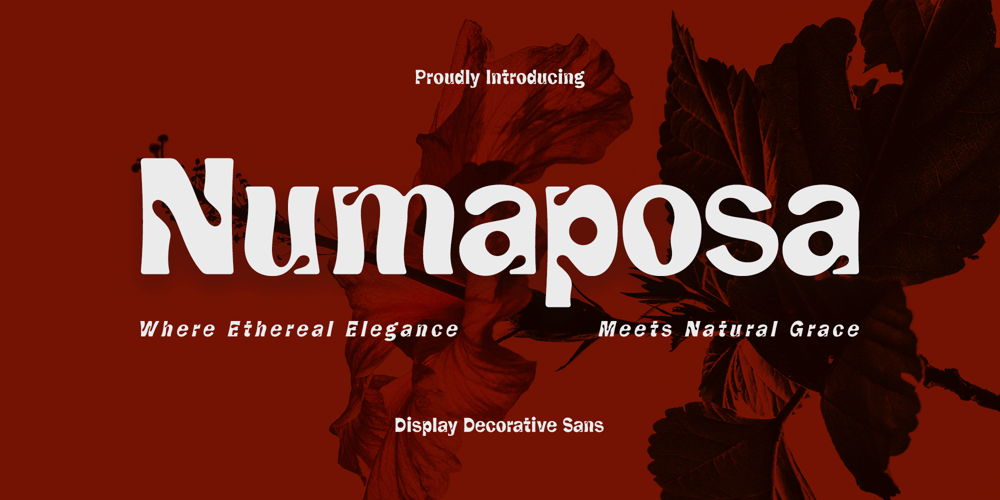
Numaposa Font Family was designed by Dede Kurniawan and published by Creatifont Studio. Numaposa contains 2 styles and family package options. Numaposa is a captivating decorative display font that blossoms with personality! This unique sans serif typeface combines organic curves reminiscent of cursive shape with a playful, modern twist. Notice the soft curves and flowing lines that hint at cursive elegance. These characteristics add a touch of sophistication and informality to your designs. Numaposa’s round letterforms and cleverly incorporated ink traps (the small enclosed areas within some letters) add a whimsical touch. Fluidity glyphs adds to the overall elegance and playfulness of the font. Numaposa offers both regular and italic styles, providing the flexibility to tailor your text according to your design needs.A SUMMARY OF WHAT’S INCLUDED: Standard Character A-Z, a-z, 0-9, Punctuation & symbols Regular and Italic Styles Multilingual Support (Diacritics, Accent, etc.) Works on PC & Mac Simple installation Accessible in Adobe Creative Suite (Ai, Ps, Id, etc.) even work on Microsoft Word. PUA Encoded Characters – Fully accessible without additional design software. ————————————————-SOFTWARE REQUIREMENTS:Most software readily supports the regular fonts within the package — To unlock the full potential of the extensive collection of standard ligatures (custom connected letters) found in the script font, you can use any software with OpenType font compatibility.To generate all ligatures, please go open Adobe Illustrator – Type – Glyphs.Please drop me a message if you have trouble regarding either installing or using this font.🌟If you come across any issues or notice anything we might have overlooked while using this product, please feel free to reach out to us. We greatly value your feedback as it helps us enhance and refine our products. Thank you!